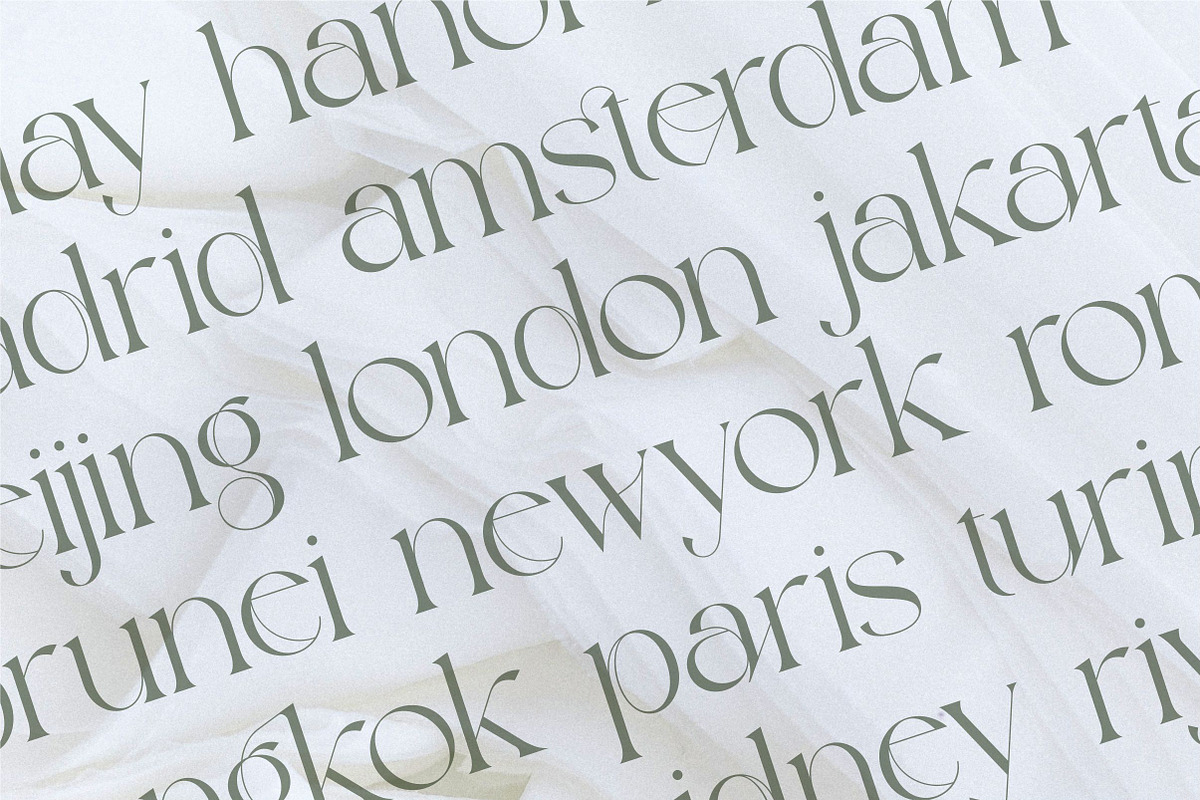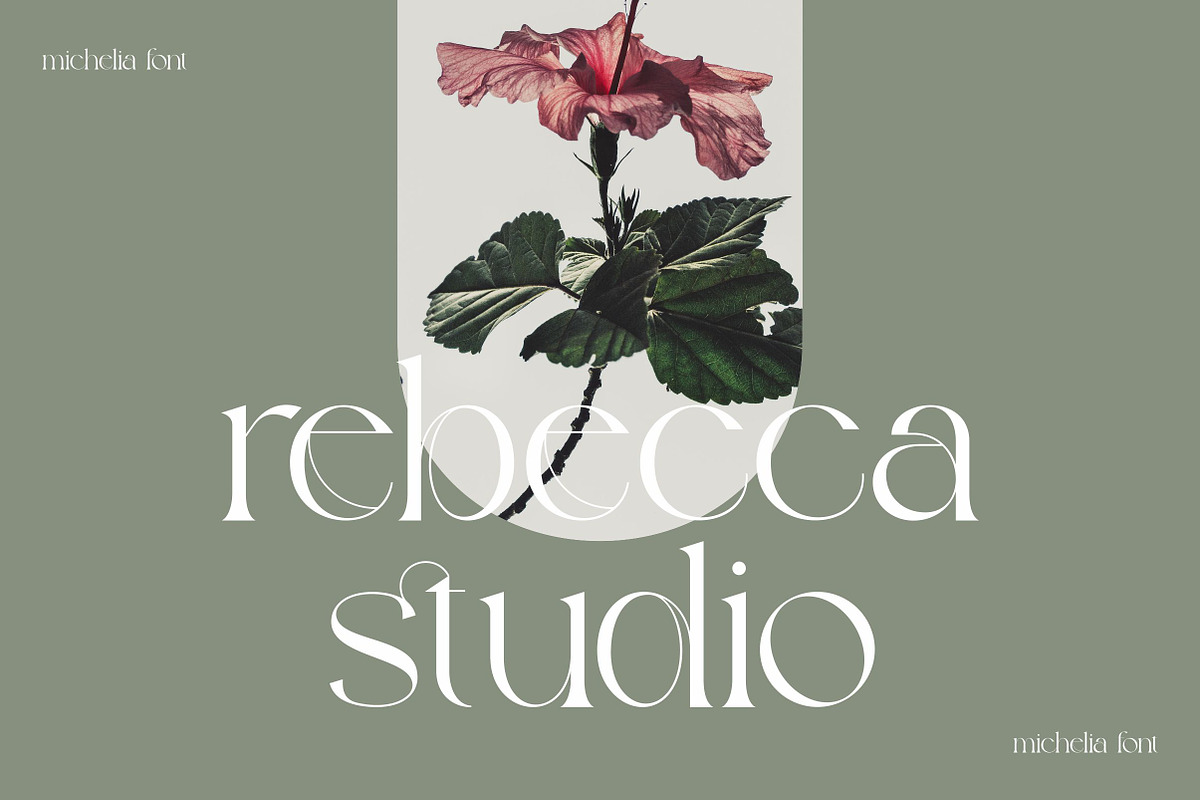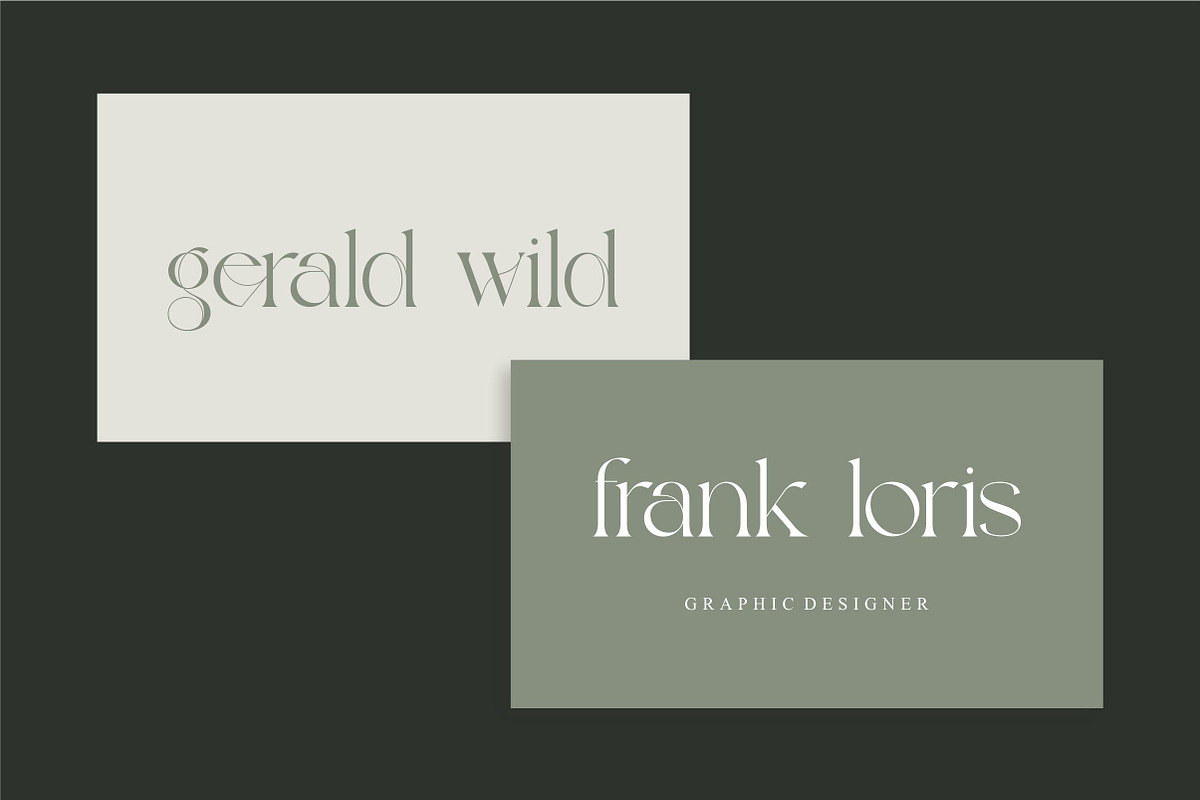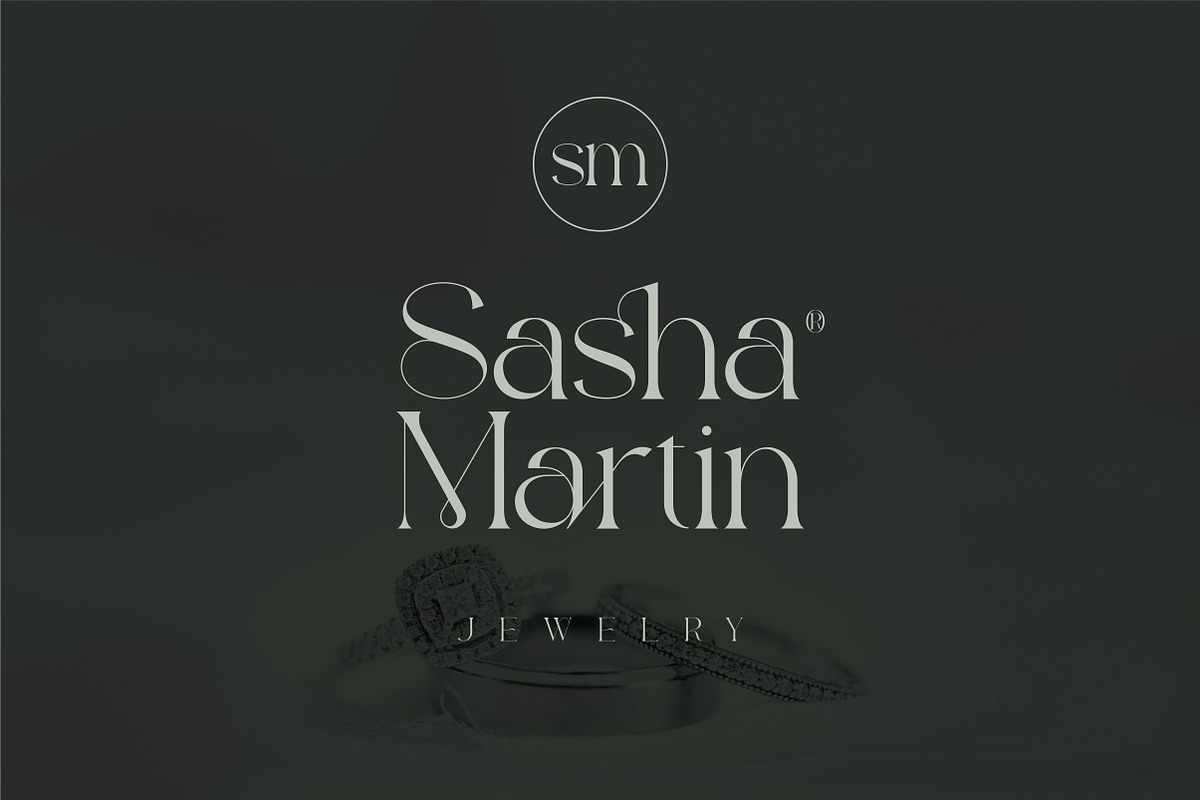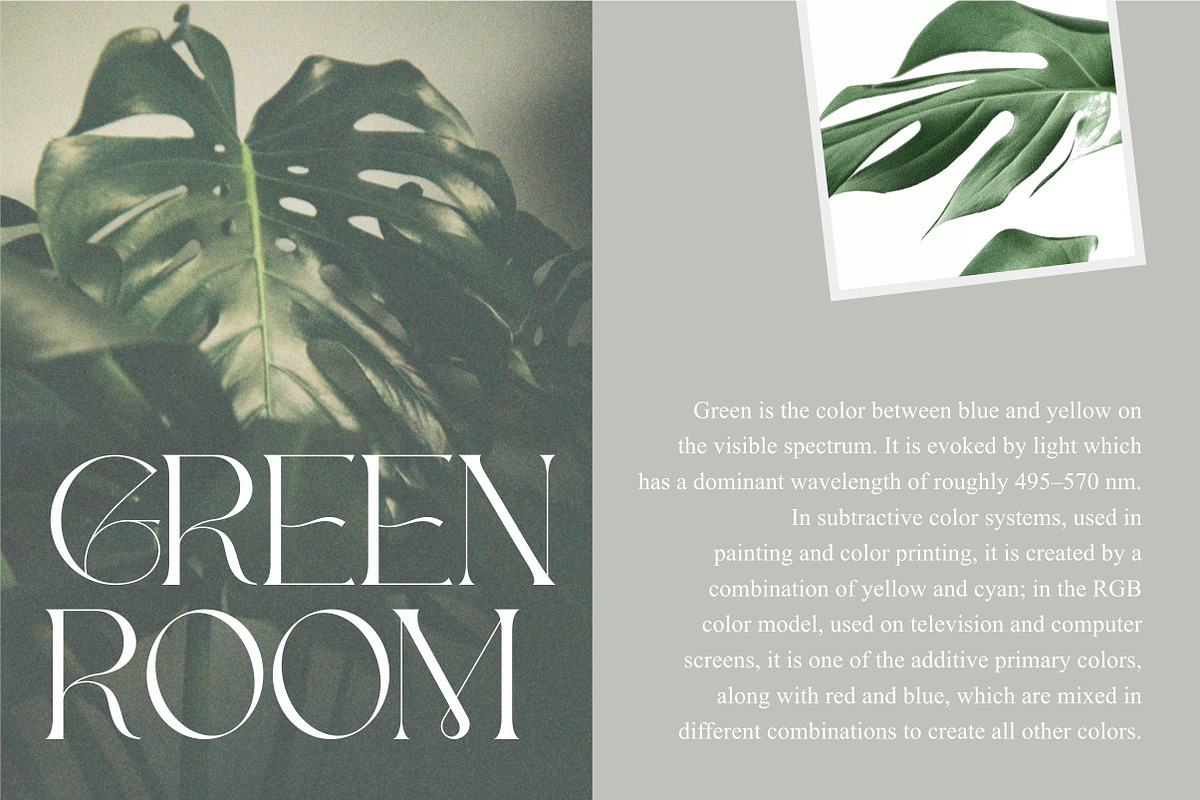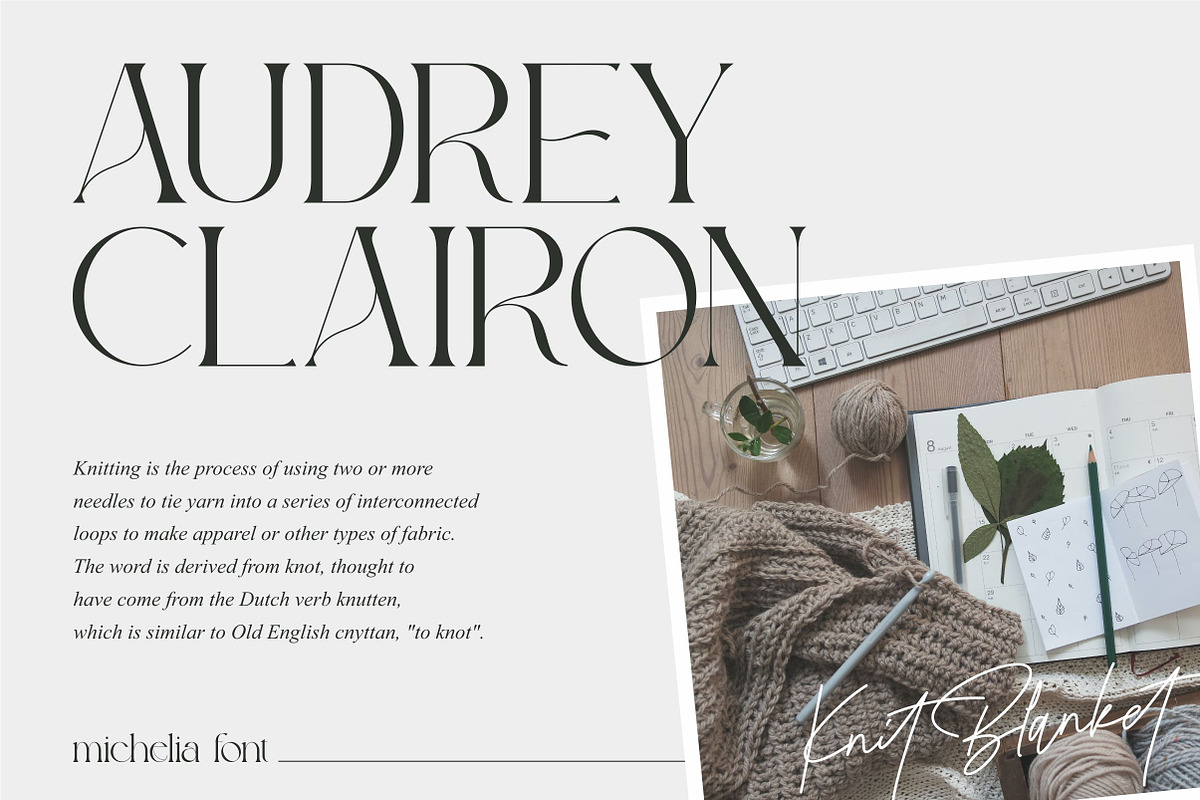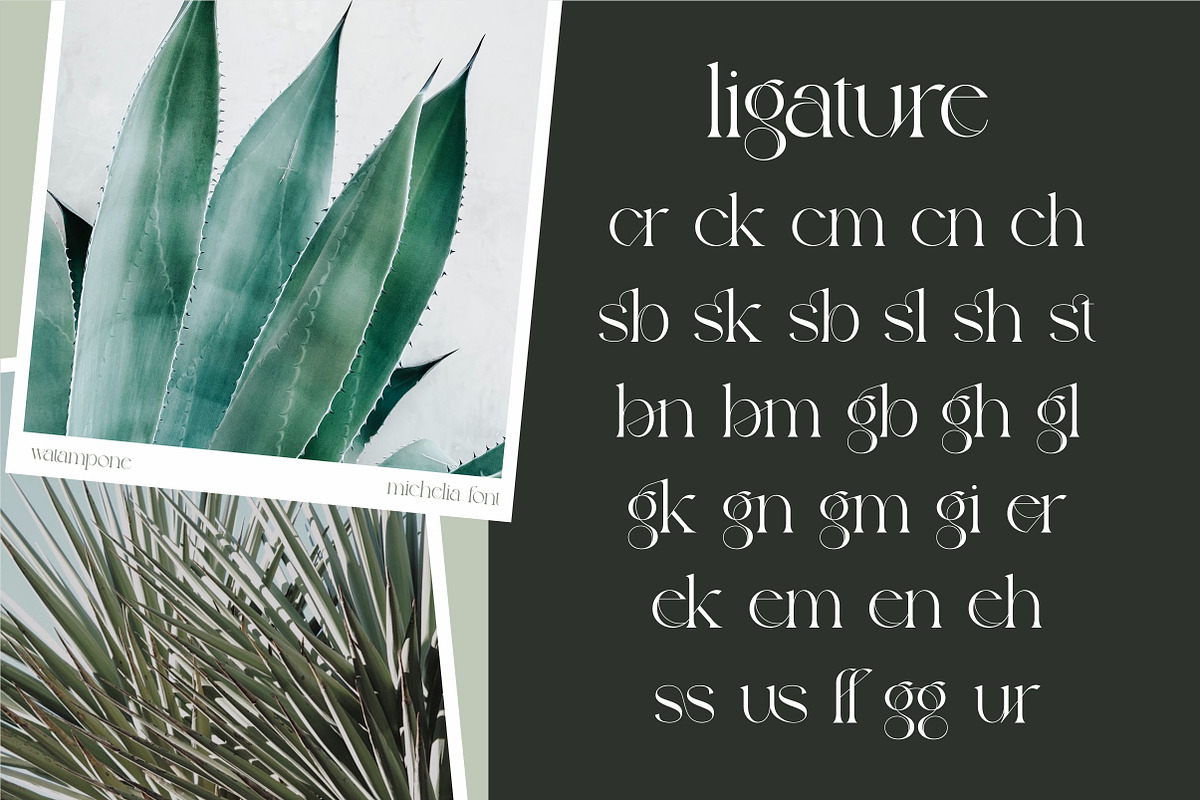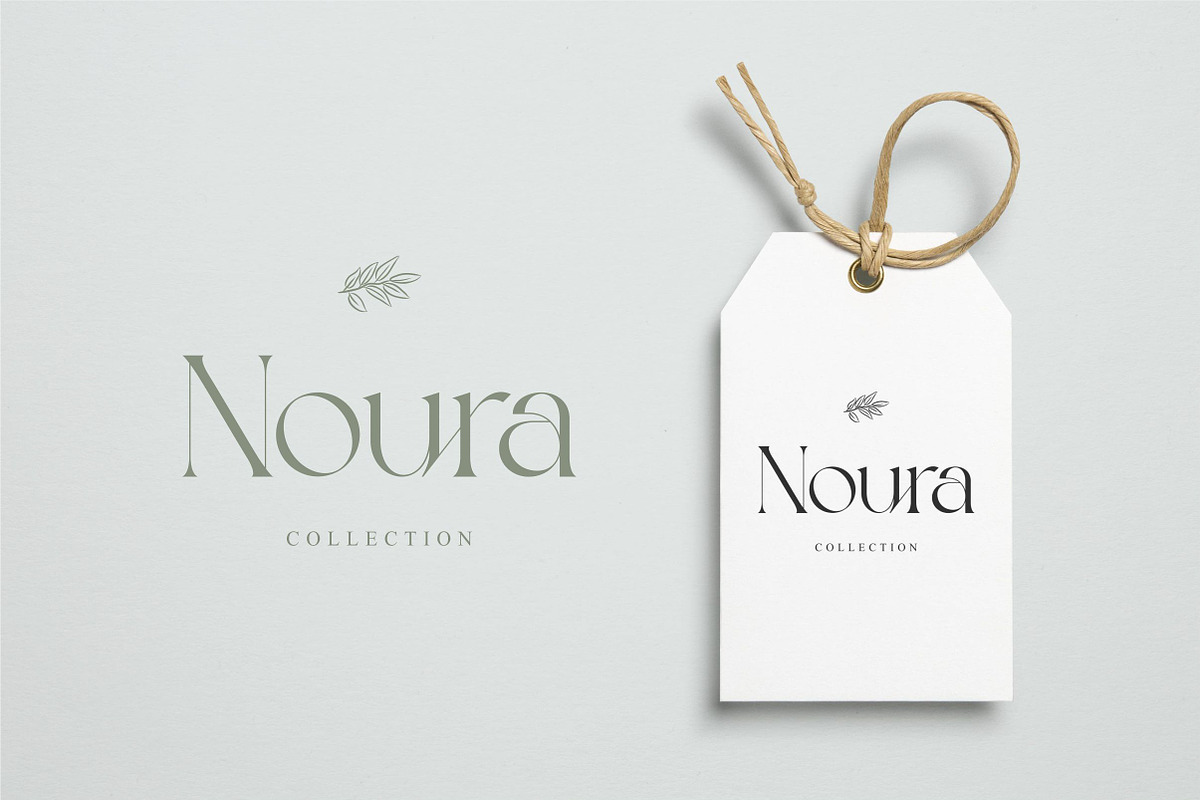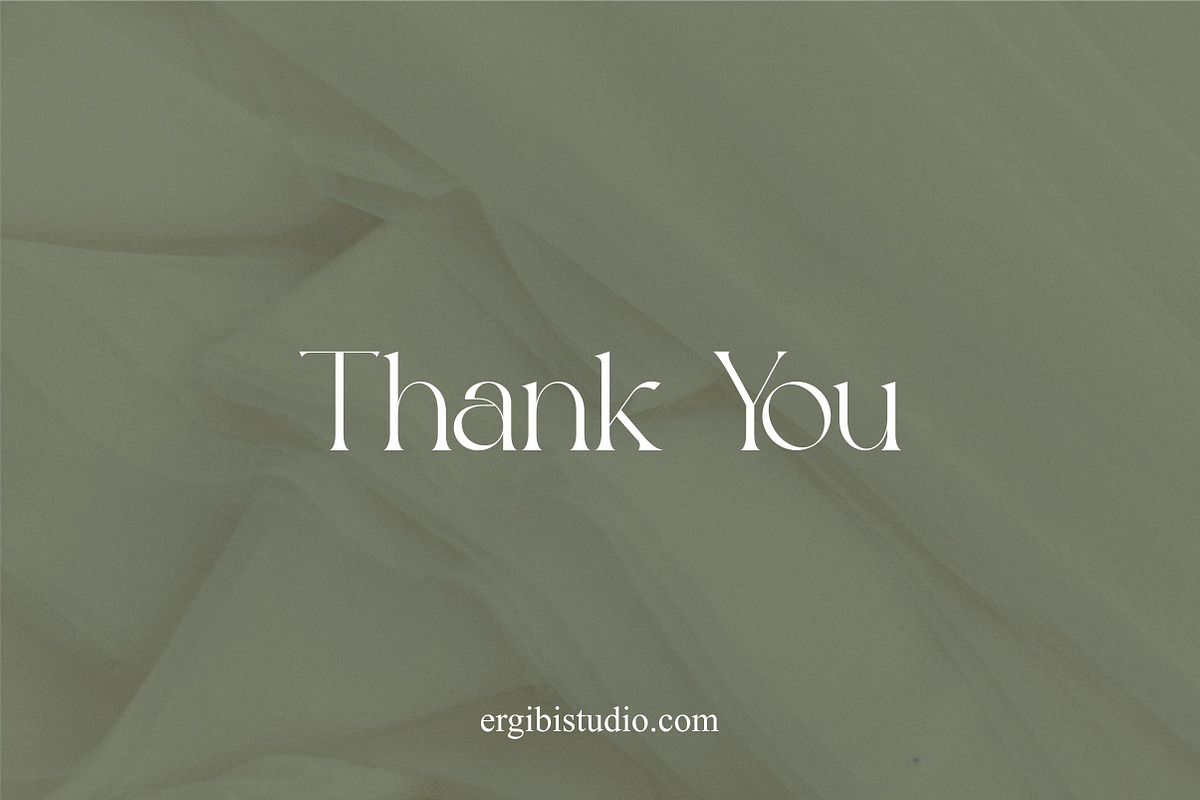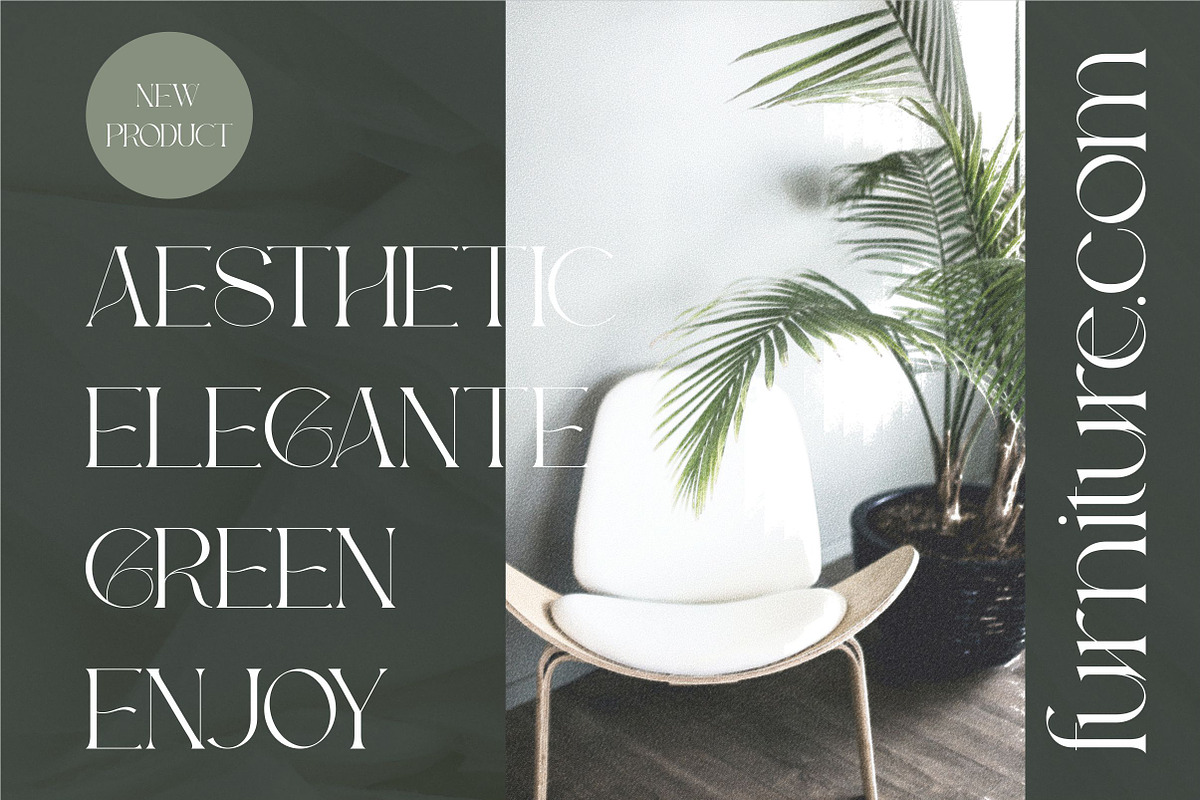
Michelia - Modern & Aesthetic
Inspired by today's modern logo with a unique style but with an elegant shape. So we tried to do and create fonts as per the current market needs. MICHELIA is perfect for BRANDING and LOGO DESIGN. You will get a classy, elegant, and of course aesthetic logo with this font. Besides that, this font has a unique ligature which is very suitable for various types of work such as posters, packaging, T-shirts, coffee shops, restaurants, magazine's headers, signs or gift/post cards, cafe's and weddings or any type of advertising purpose.